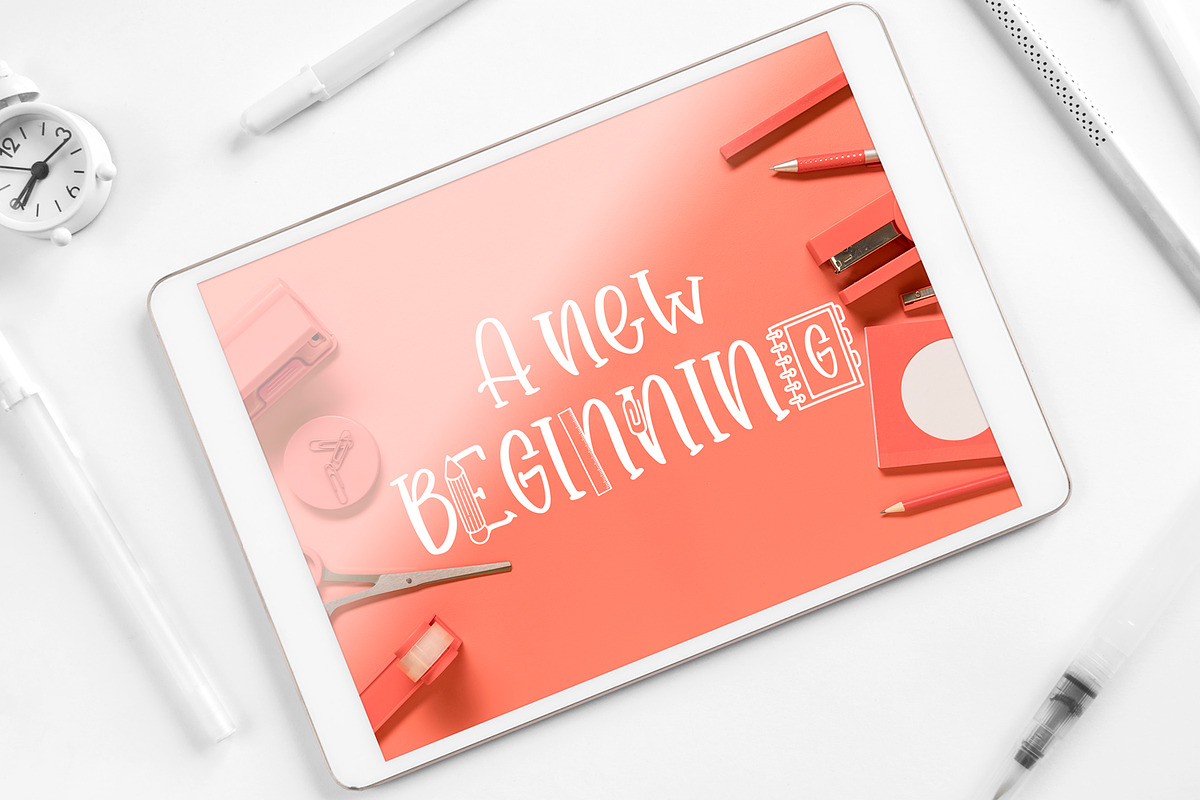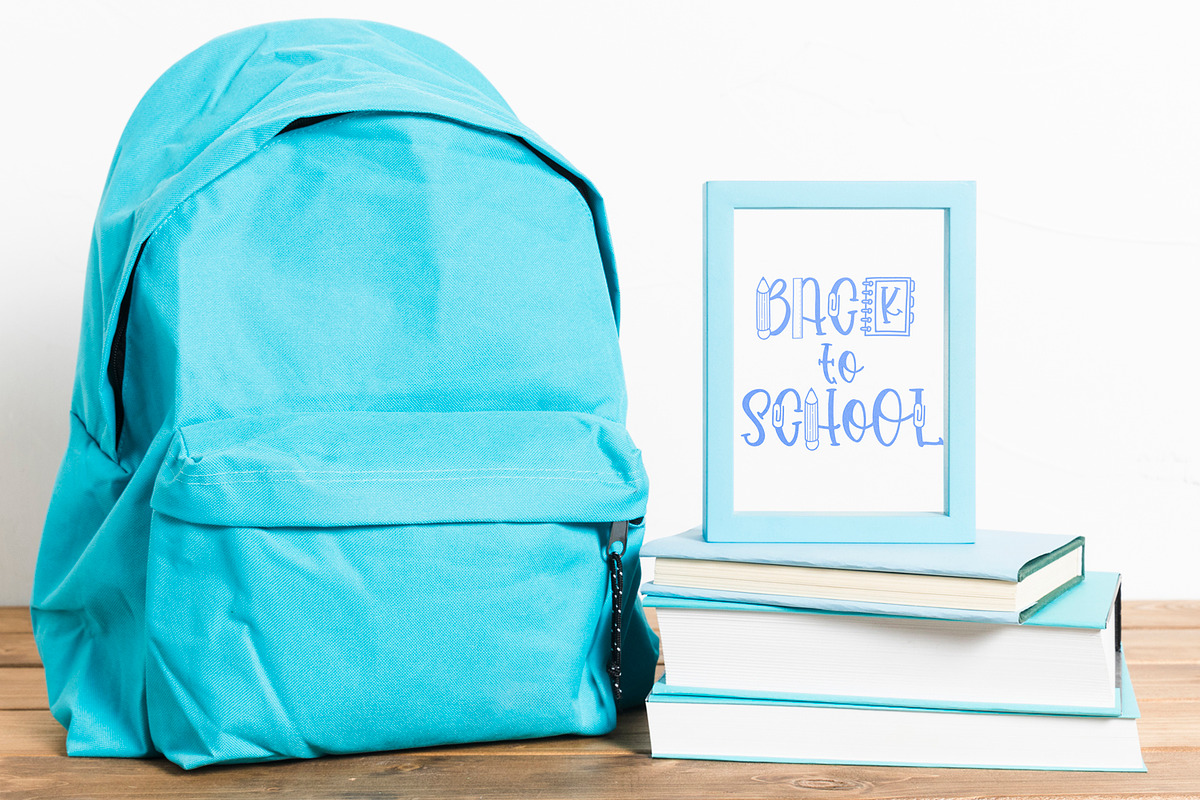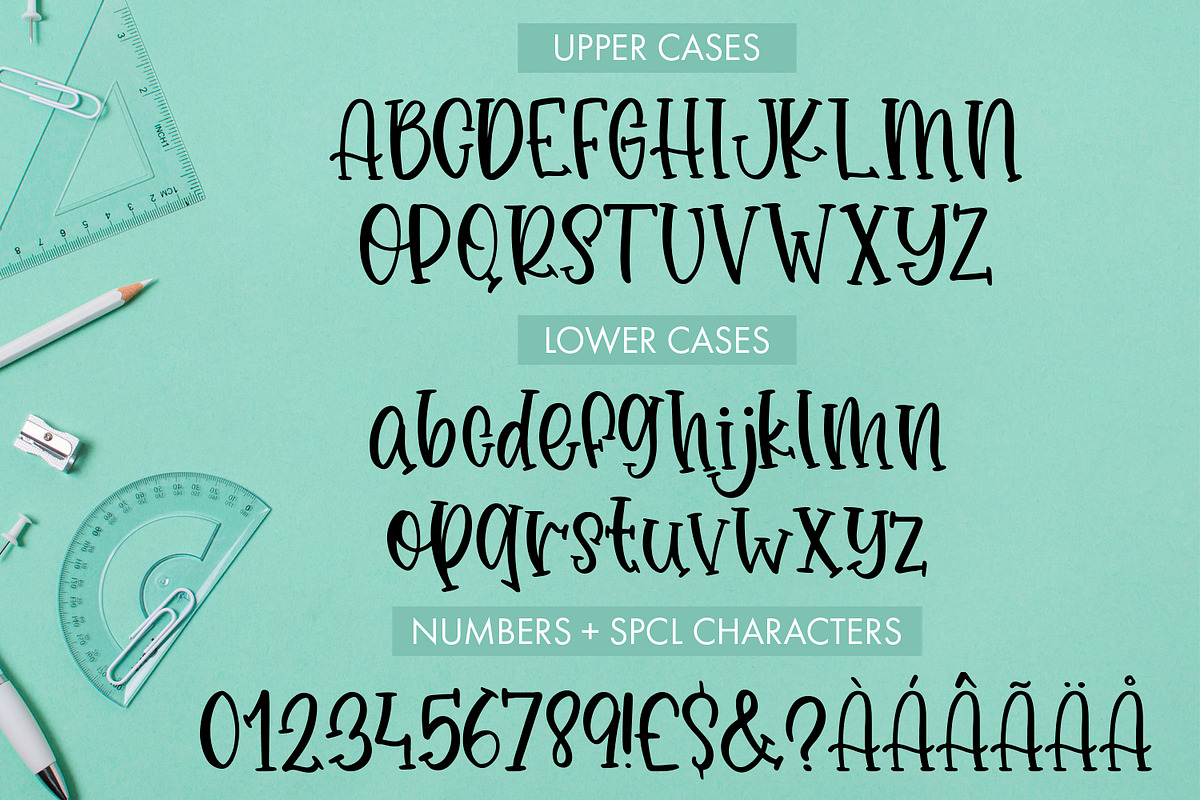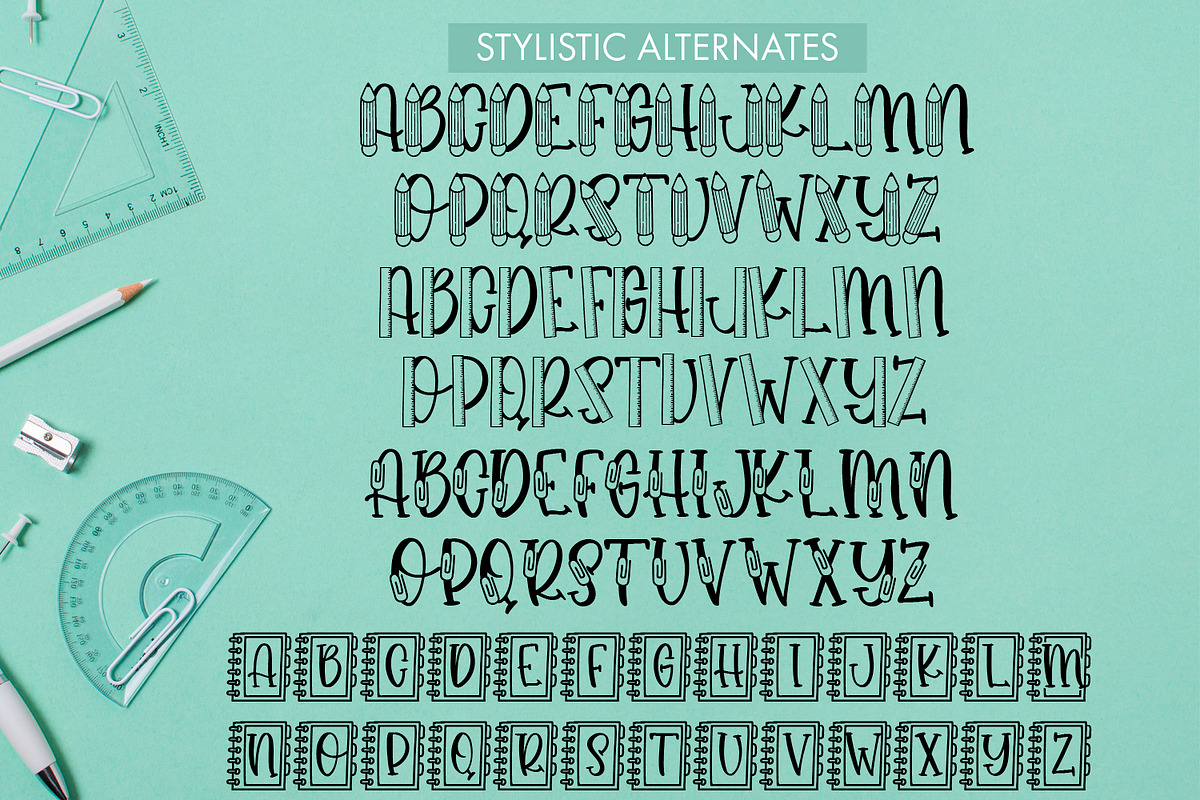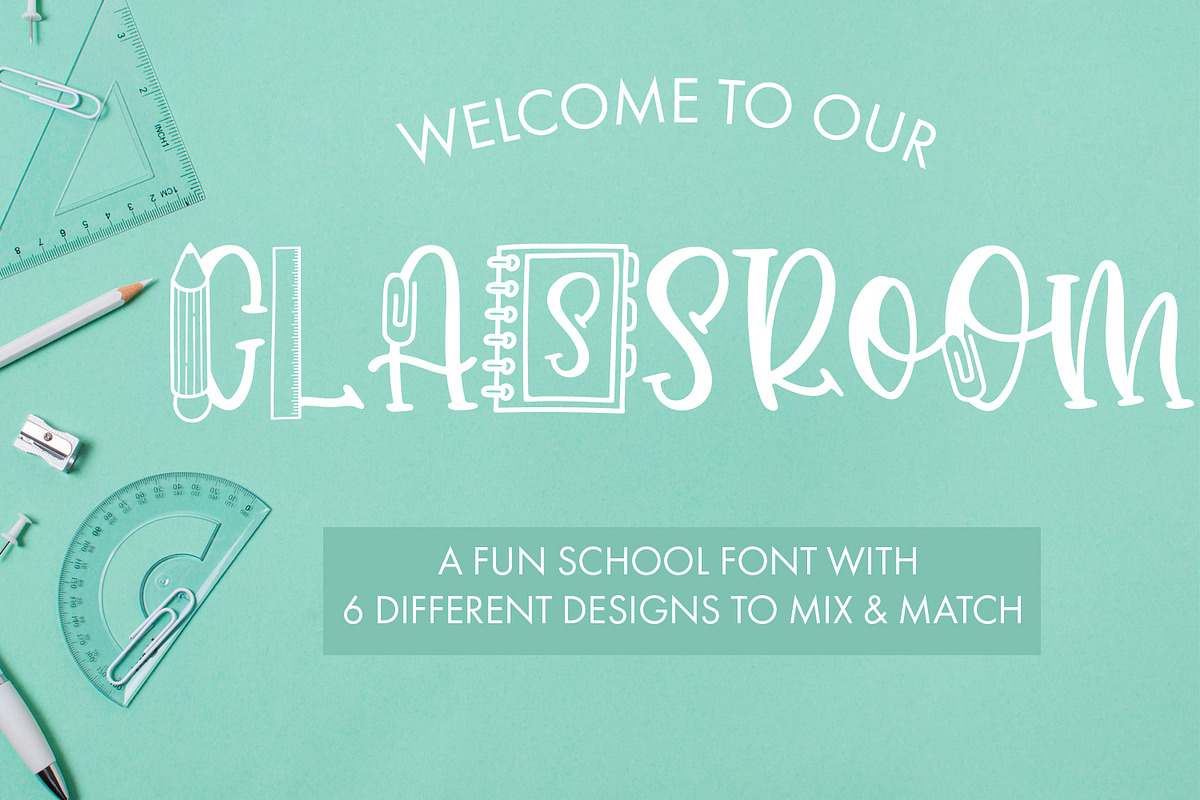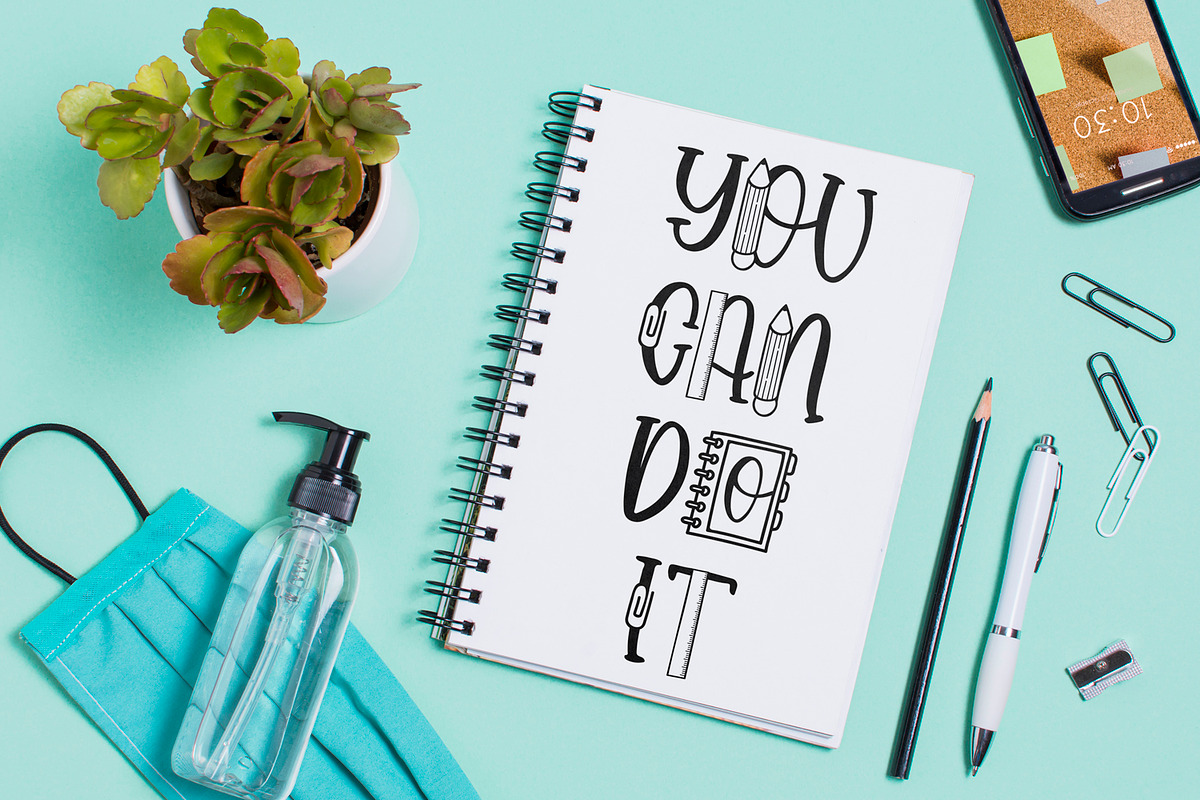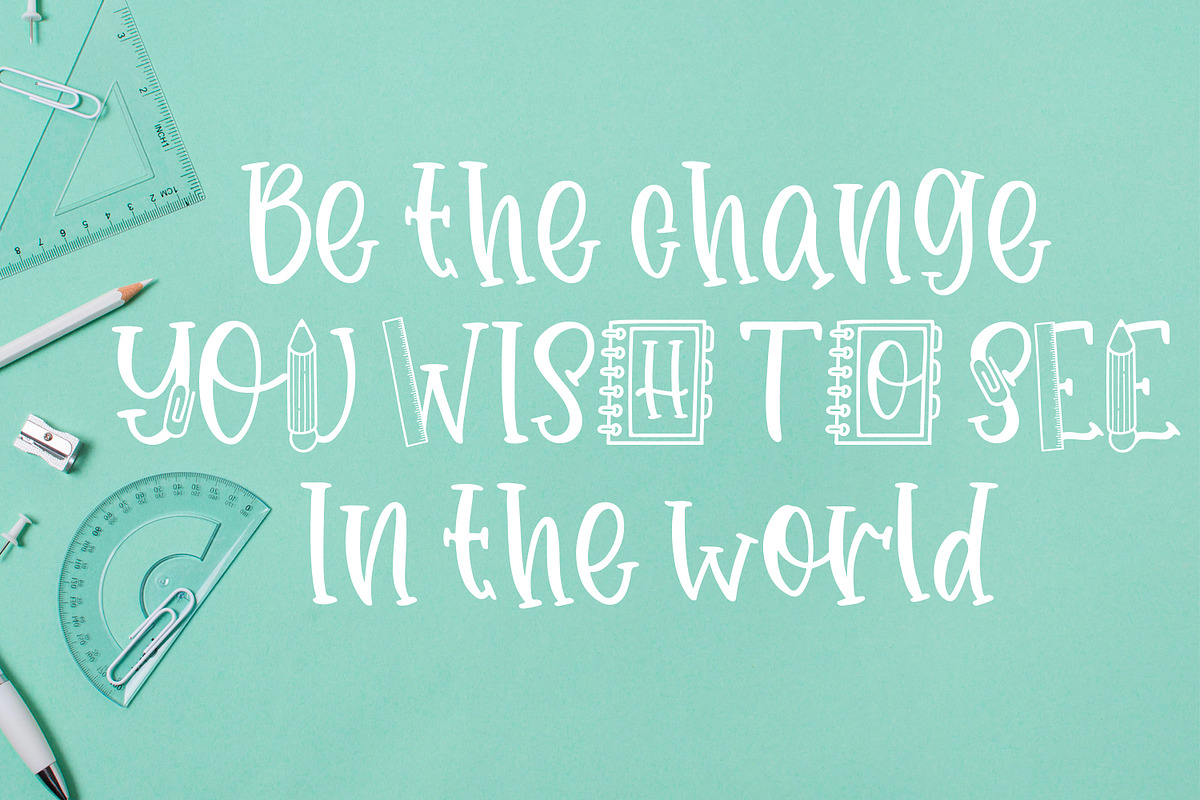
Classroom
Get ready to go back to school with Classroom, the perfect font for all your education-related projects! This beautiful handwritten font features a school theme, with 6 variations of letters for the entire alphabet, giving you endless possibilities to mix and match.
Classroom is perfect for creating gifts to teachers, various school related crafts, classroom materials, worksheets, educational posters, and more that will engage your students and make learning fun. Its unique hand-drawn style gives it a warm and organic feel, perfect for designs that need a personal touch.